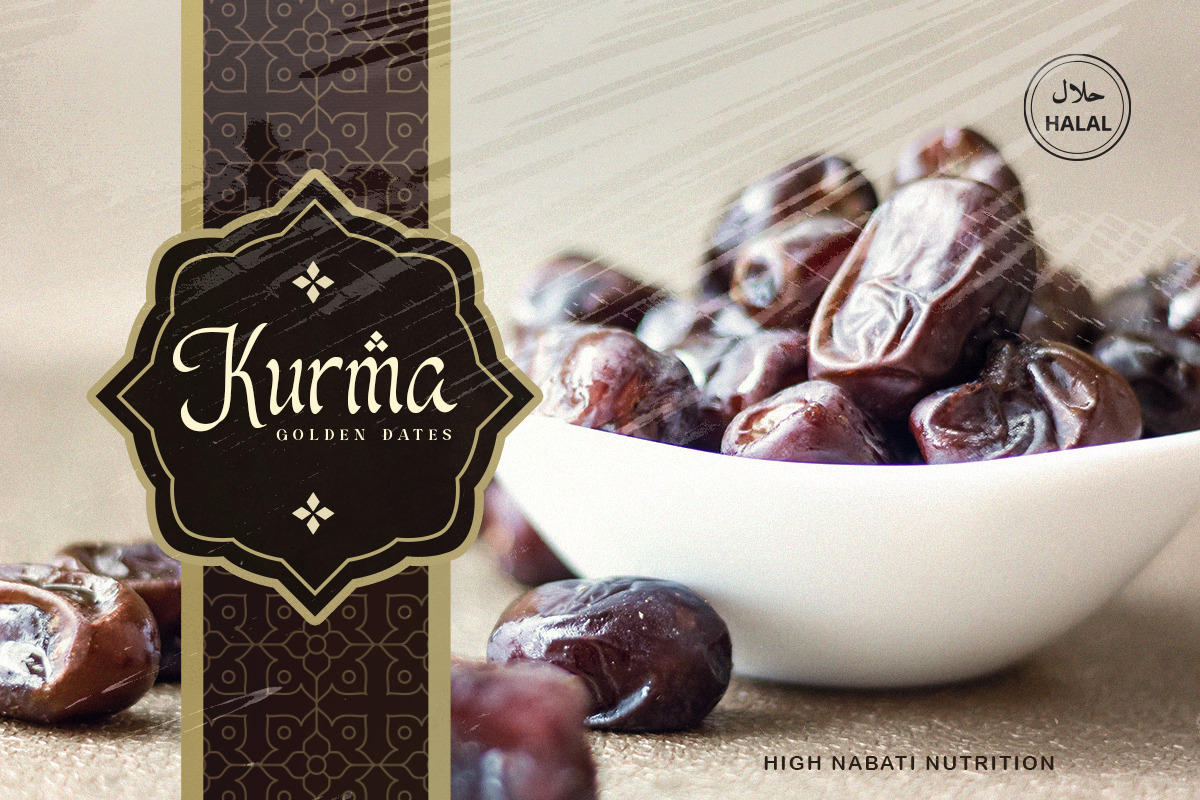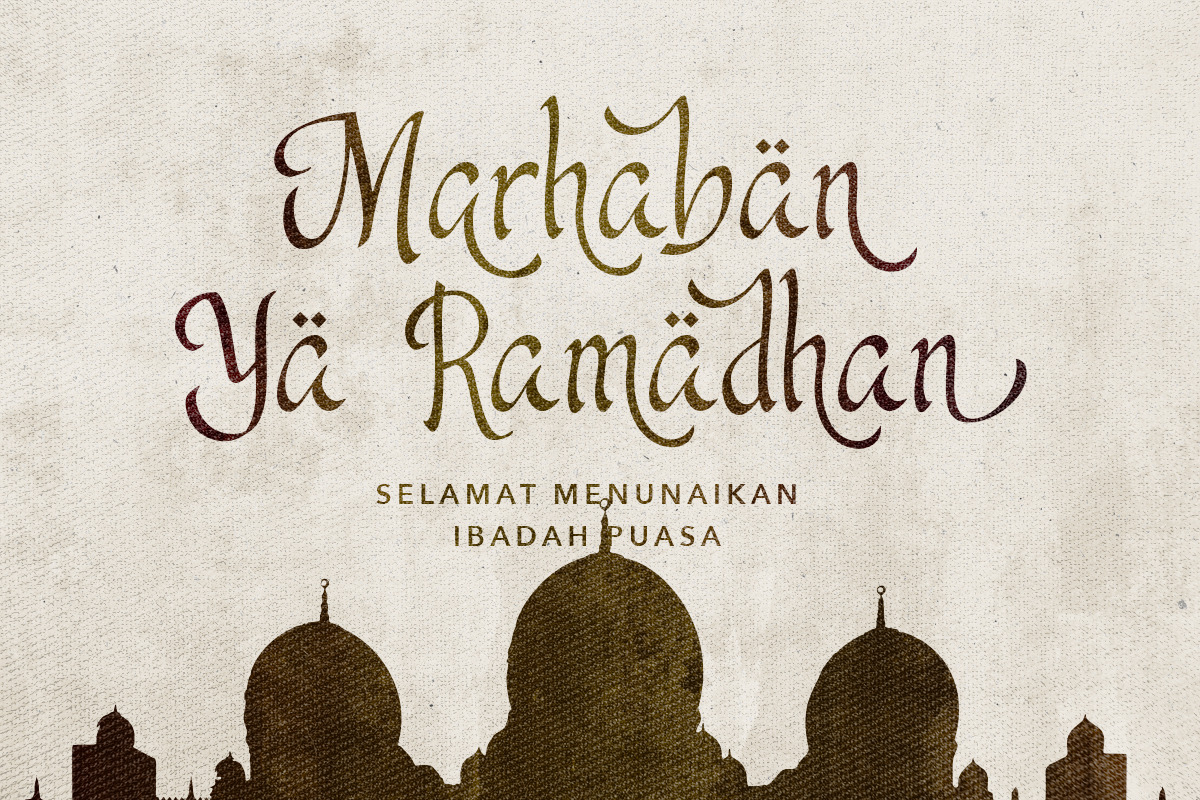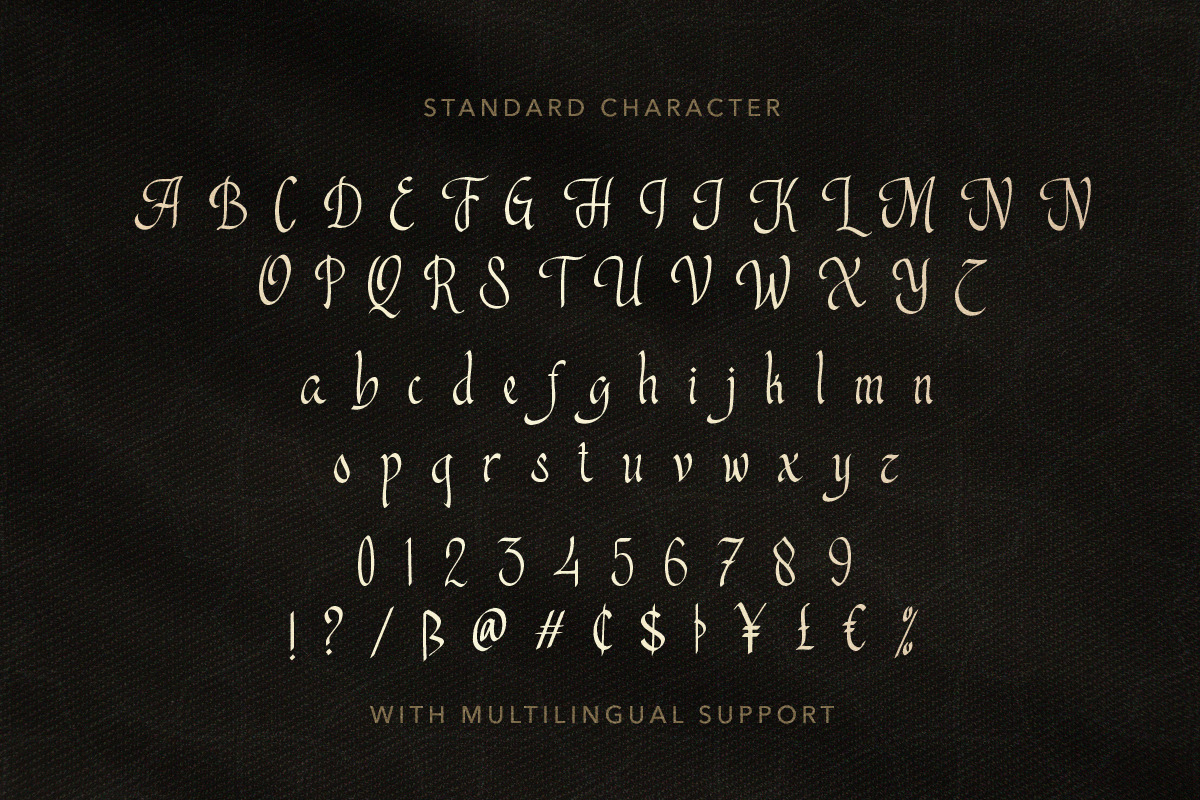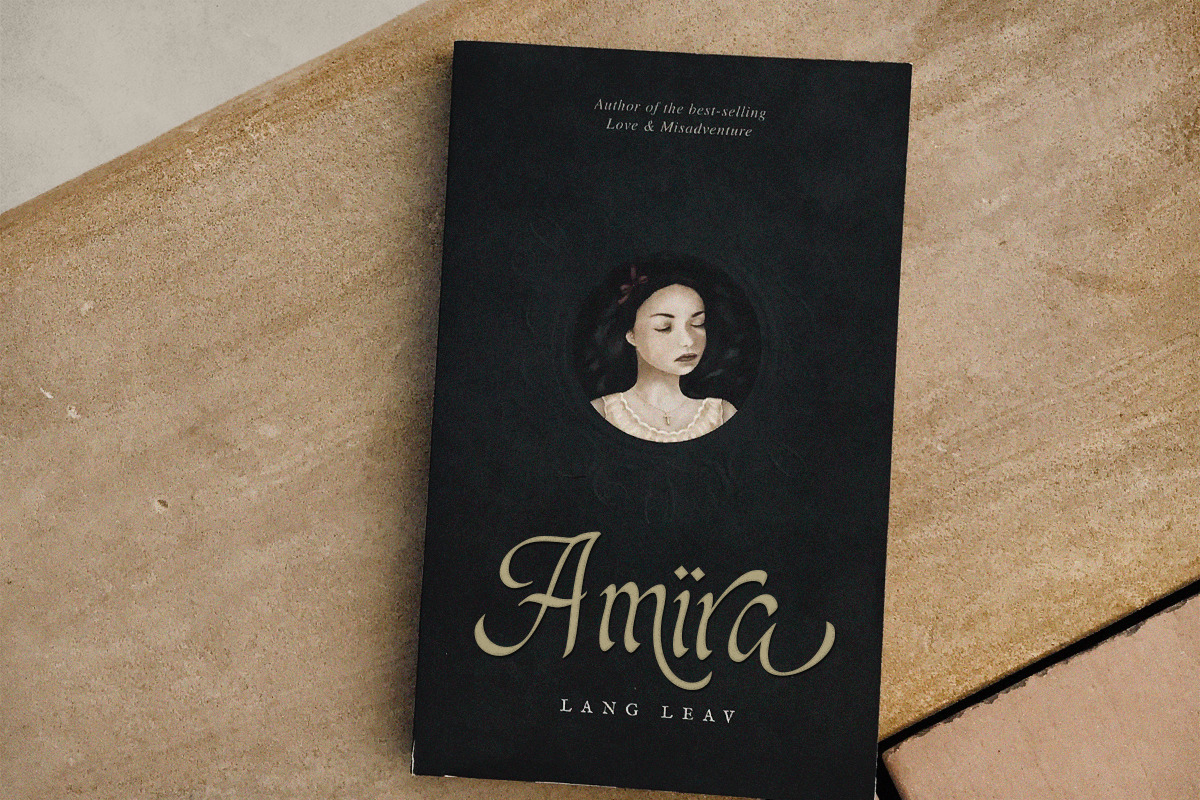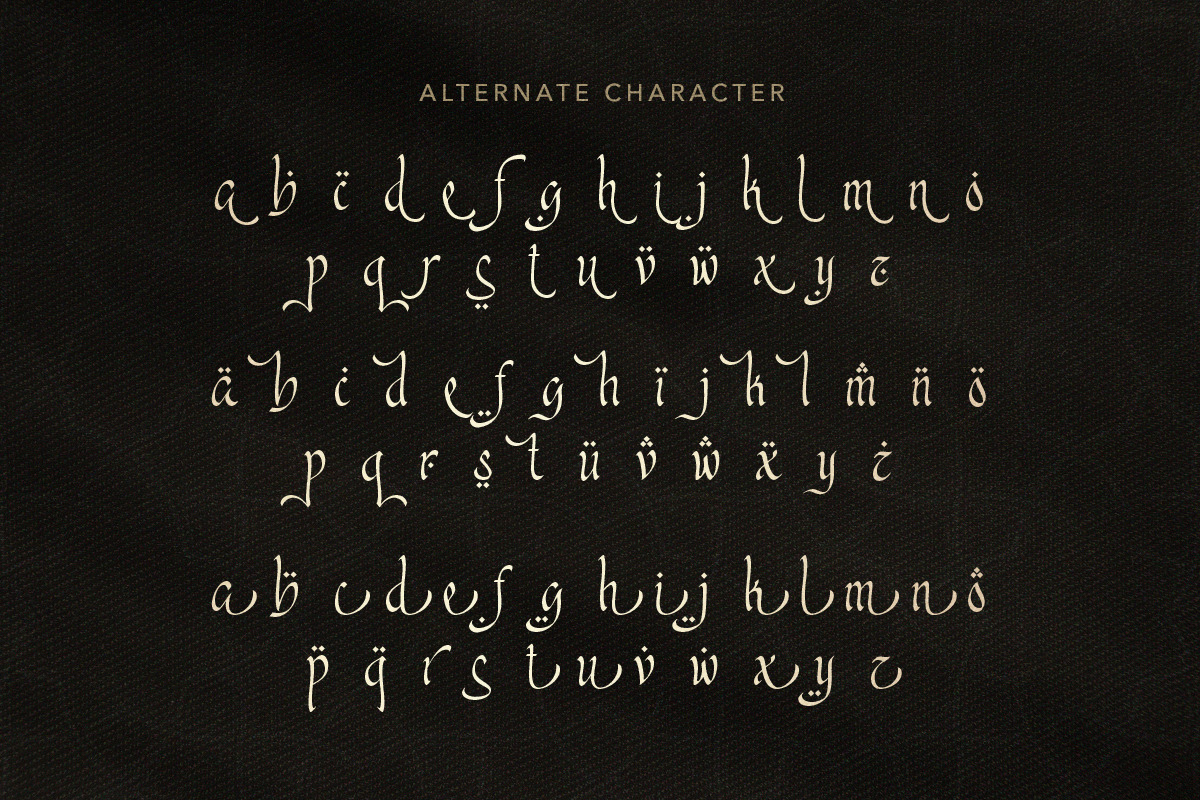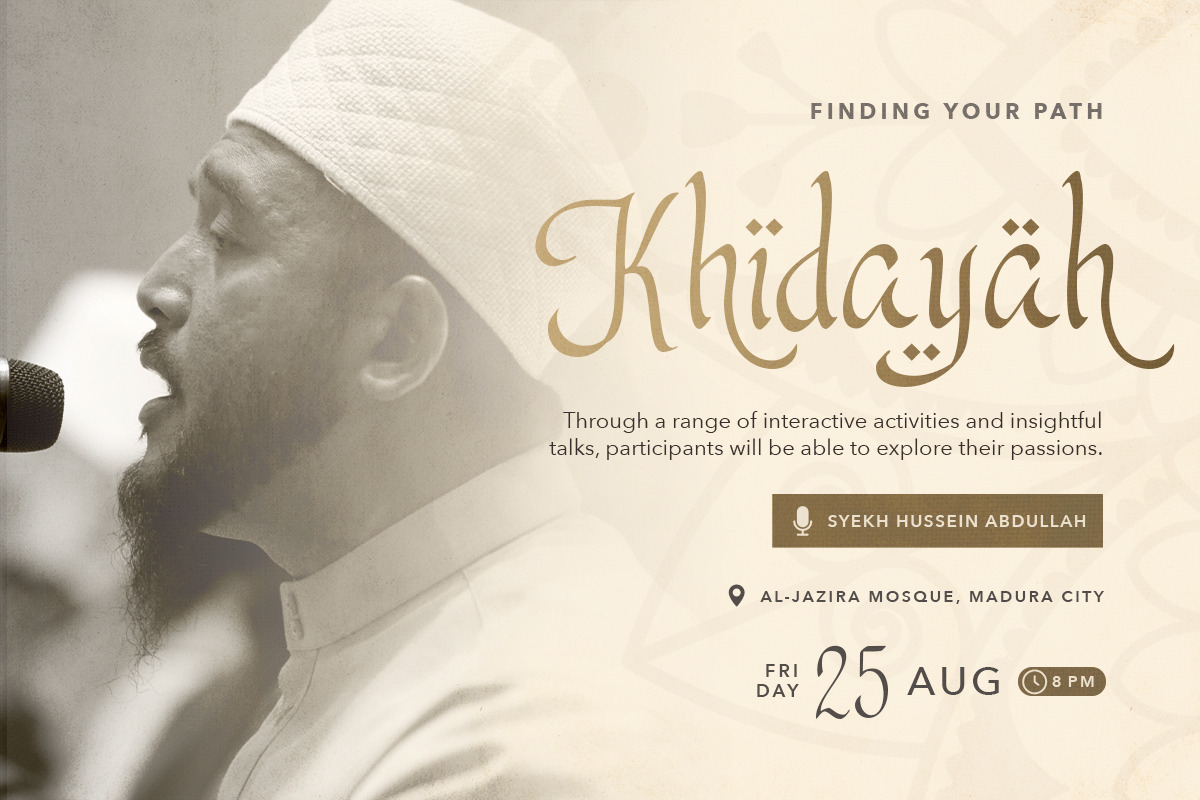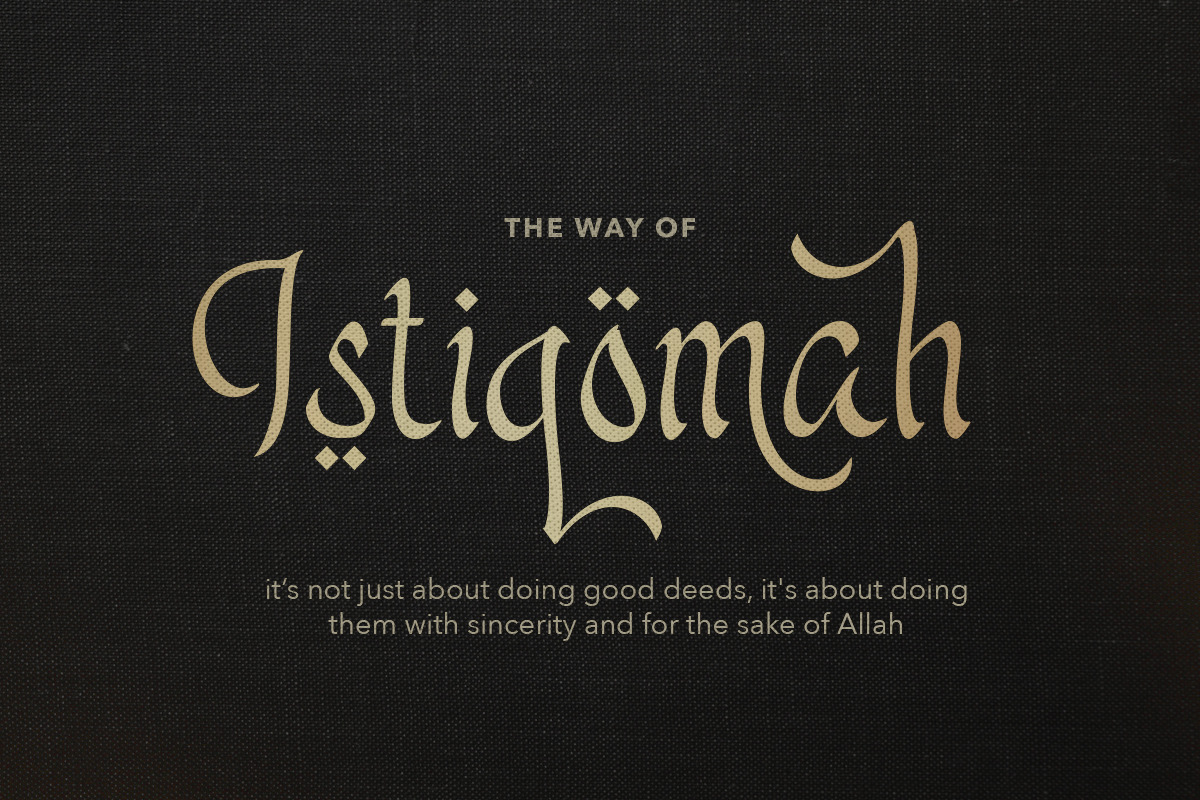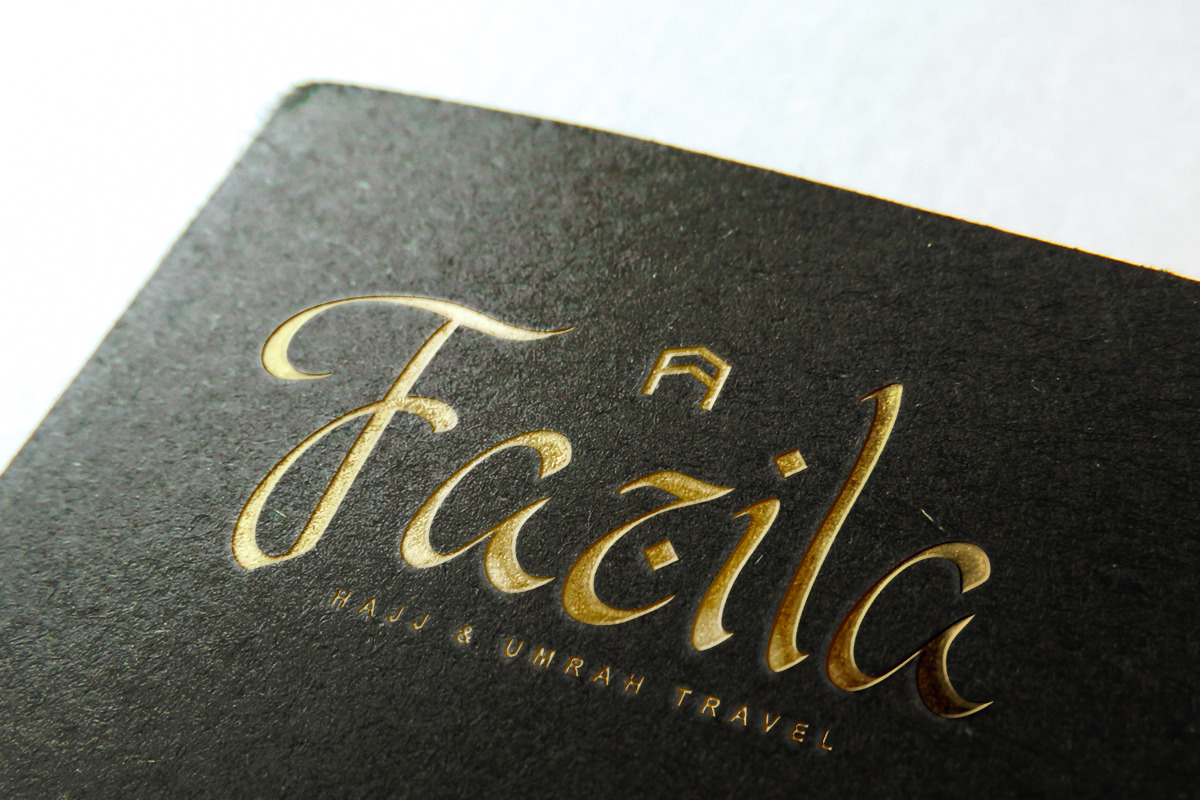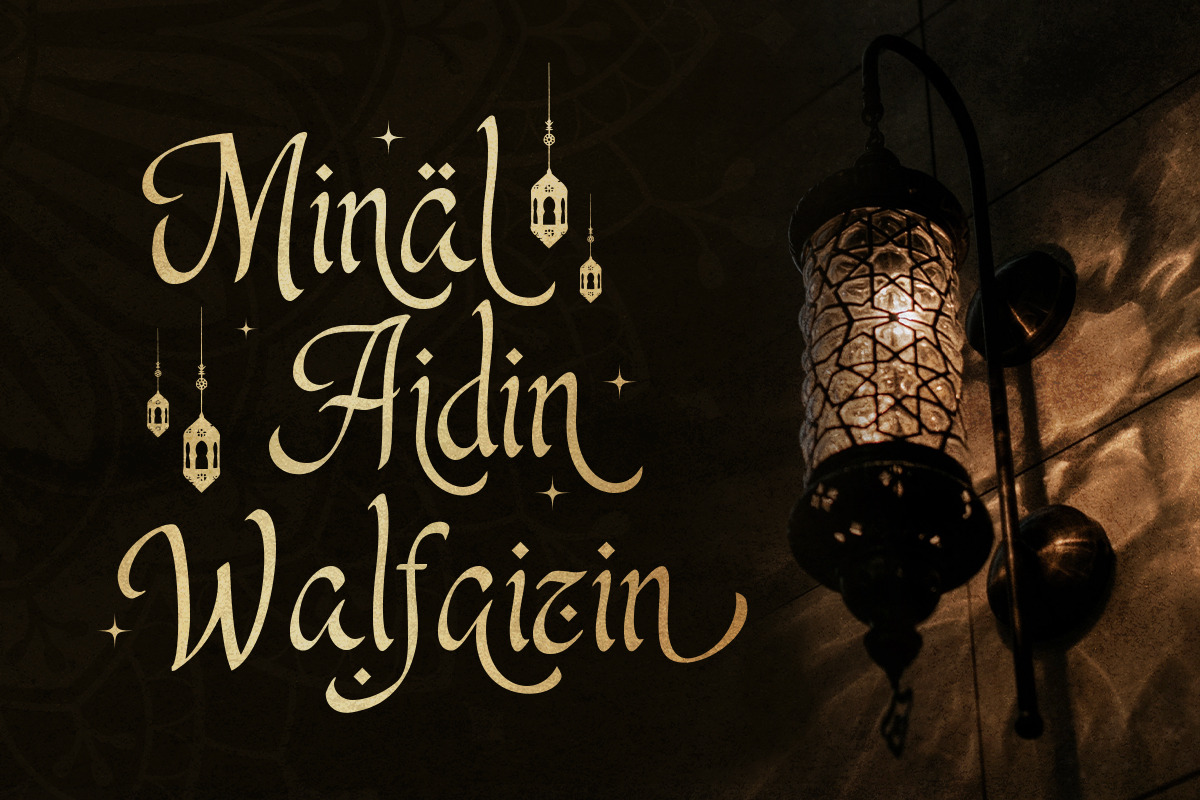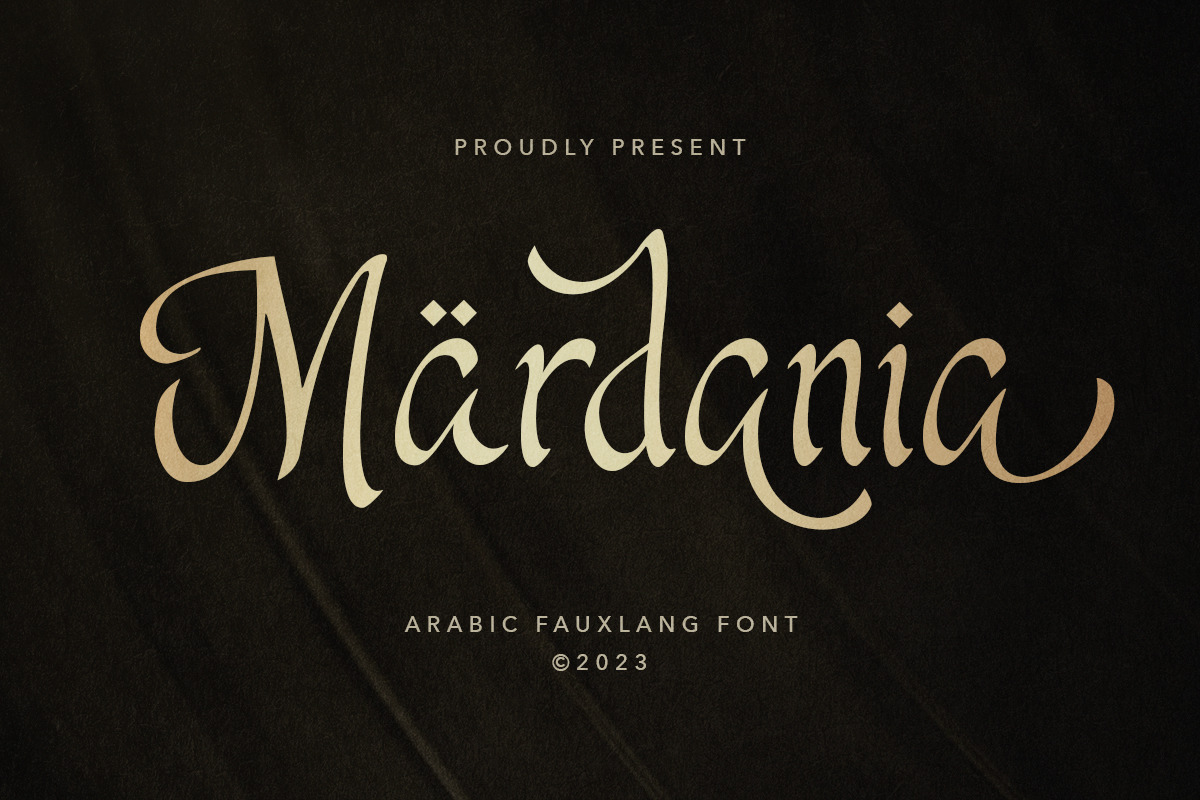
Mardania - Arabic Display Font
Mardania is an Arabic fauxlang font that have stylish alternates to make your design more stunning! This font, which was genuinely influenced by the Arabic alphabet, will give your project a more Arabian appearance while keeping it readable for everyone. Mardania can be used for any project, including branding, logo creation, wedding invitations, and special occasions like Ramadan and Islamic holidays that related to Islamic Content. This font also include number, symbol and support multilingual.